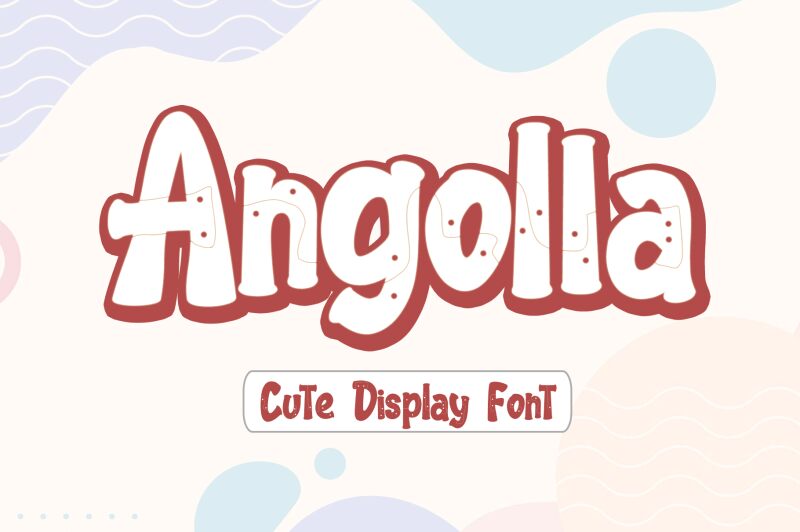
Angolla, the mesmerizing creation by Letterafa Studio, is a captivating display font that adds an artistic touch to any project. With its semi-bold weight and semi-condensed width, Angolla effortlessly blends elegance with readability. Perfect for invitations, branding materials, and editorial designs, this decorative typeface exudes a unique charm that draws attention. Whether you're crafting modern logos or designing eye-catching posters, Angolla's distinctive style and versatility make it an ideal choice for diverse projects that demand a touch of sophistication. Elevate your designs with Angolla and let your creativity shine through.